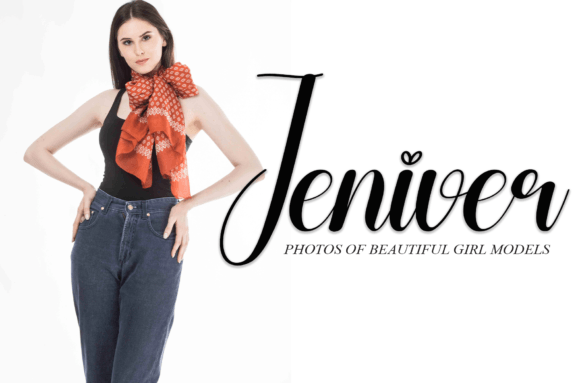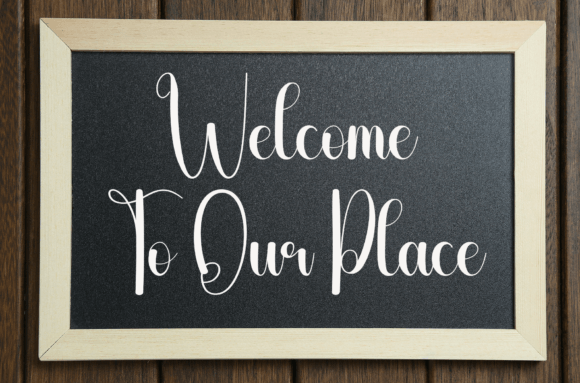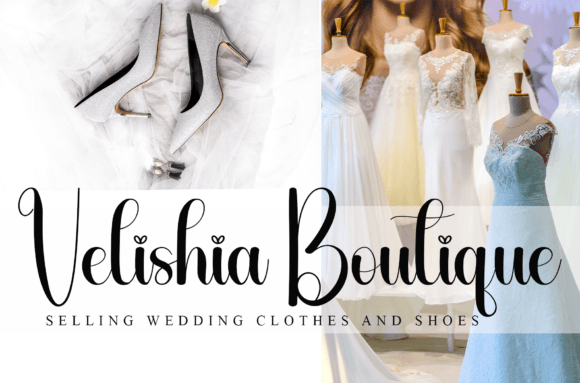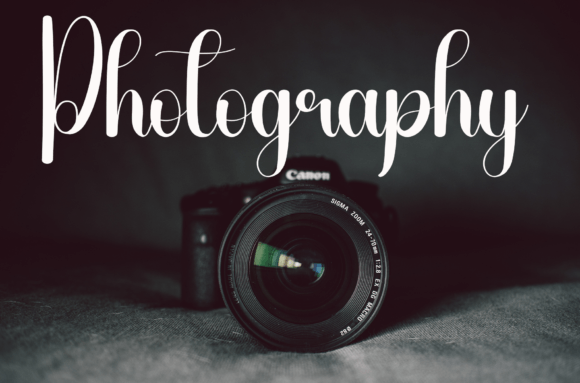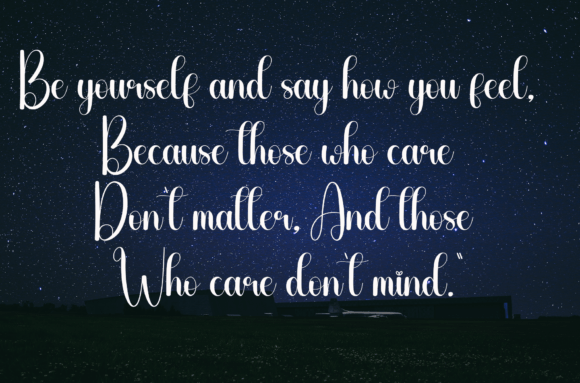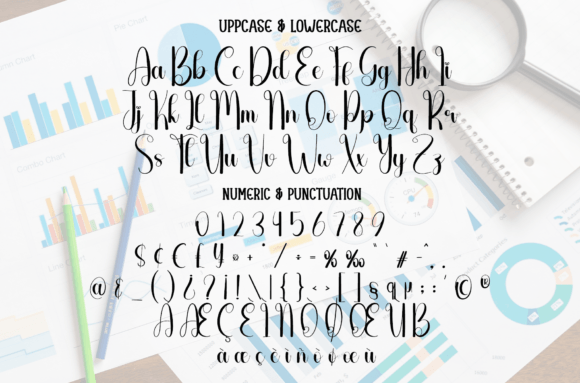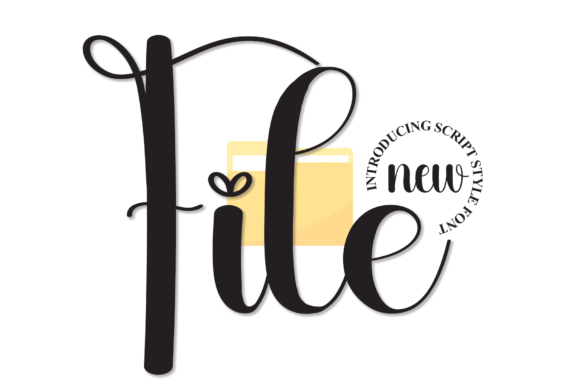
Introducing File Font: The Sweet and Friendly Handwritten Font for Your Creative Projects
Are you looking for a font that can add a personal touch to your designs? Look no further than File Font, a sweet and friendly handwritten font that’s perfect for a variety of creative projects. In this article, we’ll take a closer look at File Font, its features, and how you can use it to elevate your designs.
What is File Font?
File Font is a beautiful, handwritten font that’s fresh, neat, and full of character. Its unique and playful style makes it an ideal choice for designers and crafters who want to add a fun touch to their work. Whether you’re creating wedding invitations, greeting cards, or any other design that needs a personal touch, File Font is the perfect choice.
Key Features of File Font
- Handwritten style: File Font has a beautiful, handwritten style that’s perfect for creating personal and unique designs.
- Fresh and neat: The font is clean, fresh, and easy to read, making it perfect for a variety of design projects.
- Versatile: File Font can be used for a wide range of design projects, from wedding invitations to social media graphics.
How to Use File Font in Your Designs
File Font is a versatile font that can be used in a variety of design projects. Here are some ideas to get you started:
- Wedding invitations: File Font is perfect for creating beautiful and unique wedding invitations that will set the tone for your special day.
- Greeting cards: Use File Font to create personalized greeting cards for birthdays, holidays, and other special occasions.
- Social media graphics: Add a personal touch to your social media graphics with File Font, perfect for creating engaging and shareable content.
- Logos and branding: File Font can be used to create unique and memorable logos and branding materials that will help your business stand out.
Why Choose File Font?
There are many fonts to choose from, but File Font stands out from the rest. Here are some reasons why:
- Unique style: File Font has a unique and playful style that’s sure to grab attention.
- High-quality: File Font is a high-quality font that’s designed to look great in any design project.
Tips for Using File Font Effectively
Here are some tips for using File Font effectively in your designs:
- Use it sparingly: File Font is a bold font, so use it sparingly to avoid overwhelming your design.
- Pair it with other fonts: File Font pairs well with other fonts, so experiment with different combinations to find the perfect look.
- Adjust the size: Adjust the size of File Font to create visual interest and hierarchy in your design.
- Experiment with colors: File Font looks great in a variety of colors, so experiment with different colors to find the perfect look.
File Font is a beautiful and versatile handwritten font that’s perfect for a variety of design projects. Its unique and playful style makes it an ideal choice for designers and crafters who want to add a fun touch to their work. With its ease of use, high-quality design, and affordability, File Font is a great choice for anyone looking to elevate their designs.